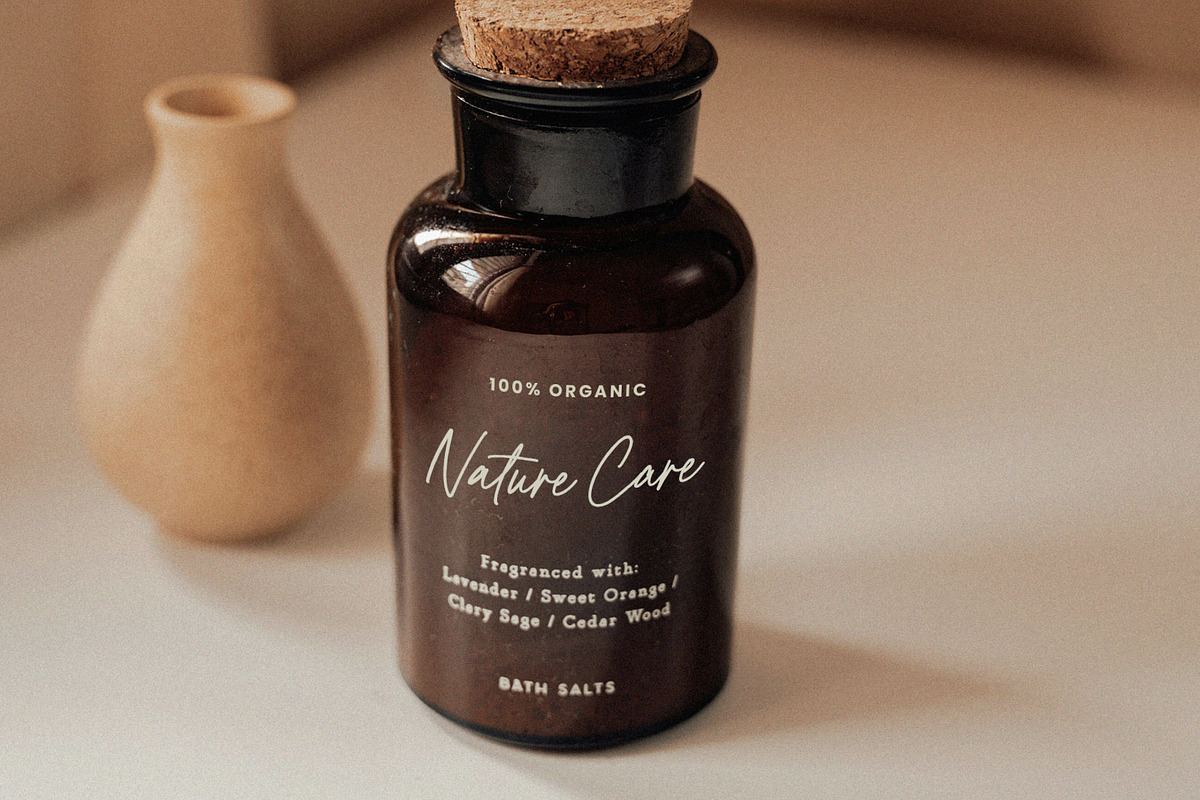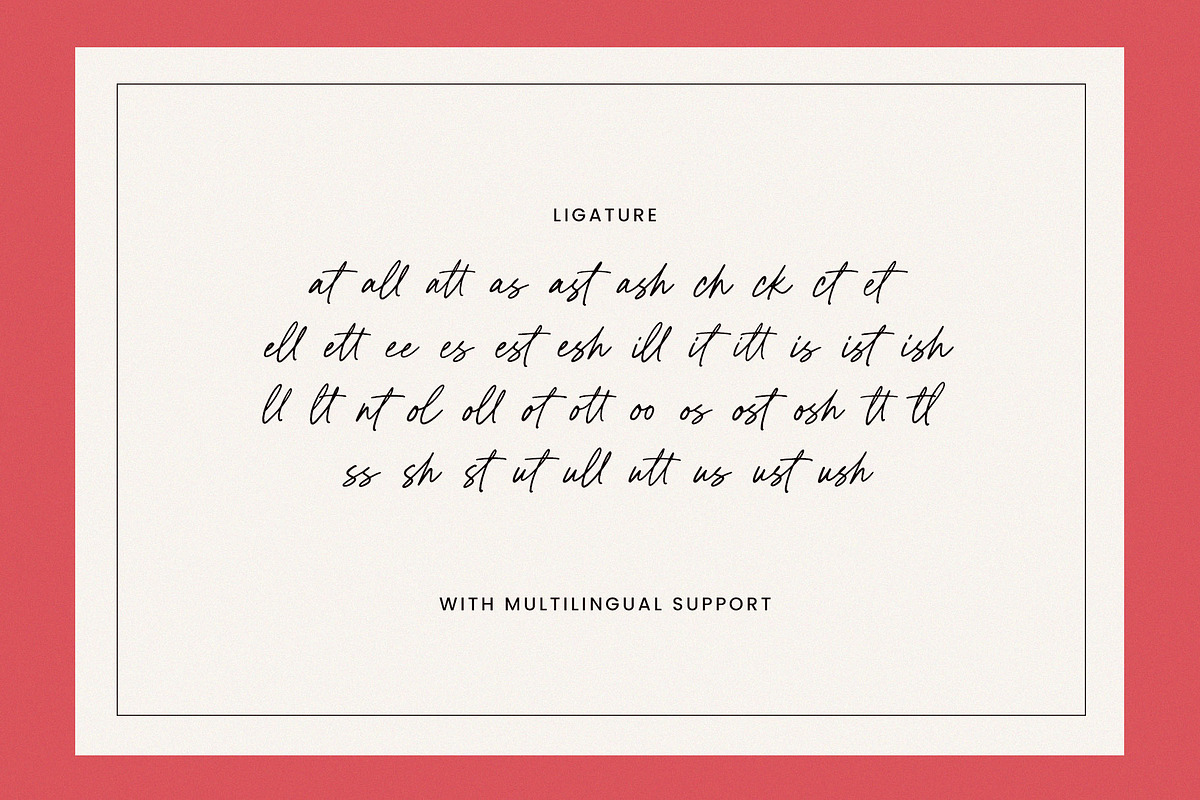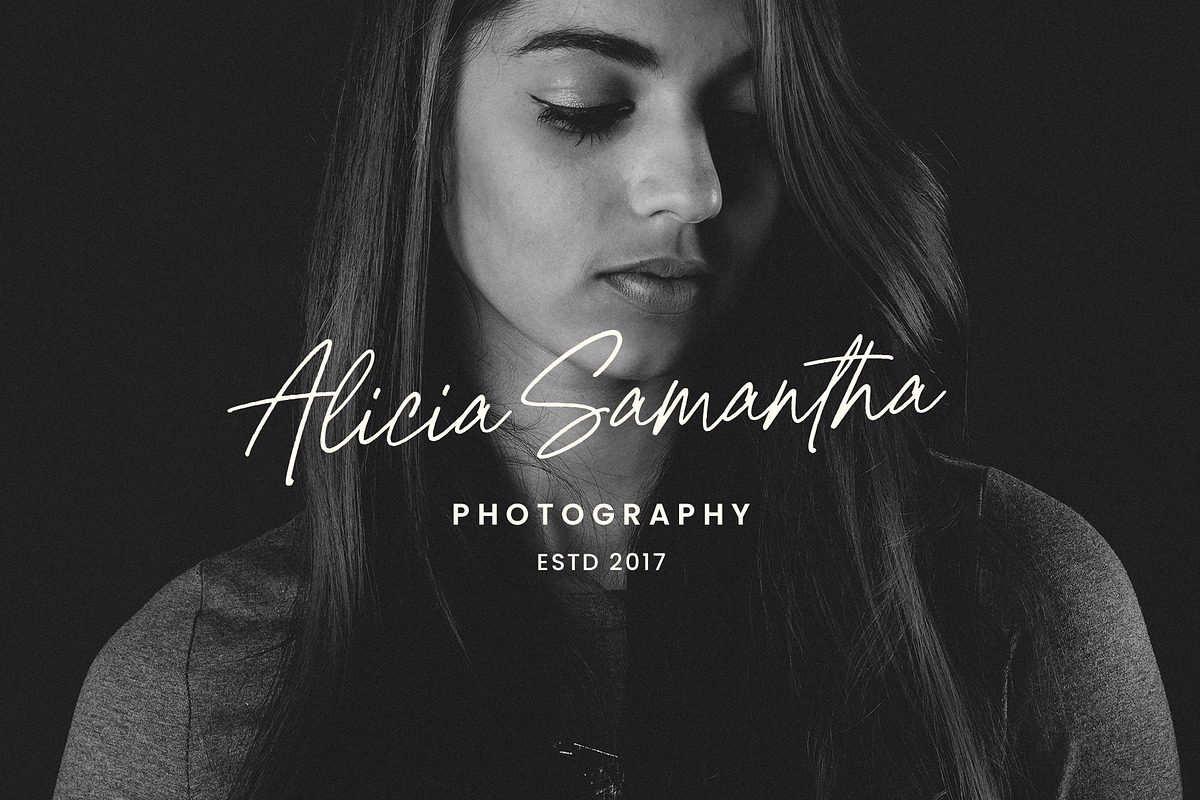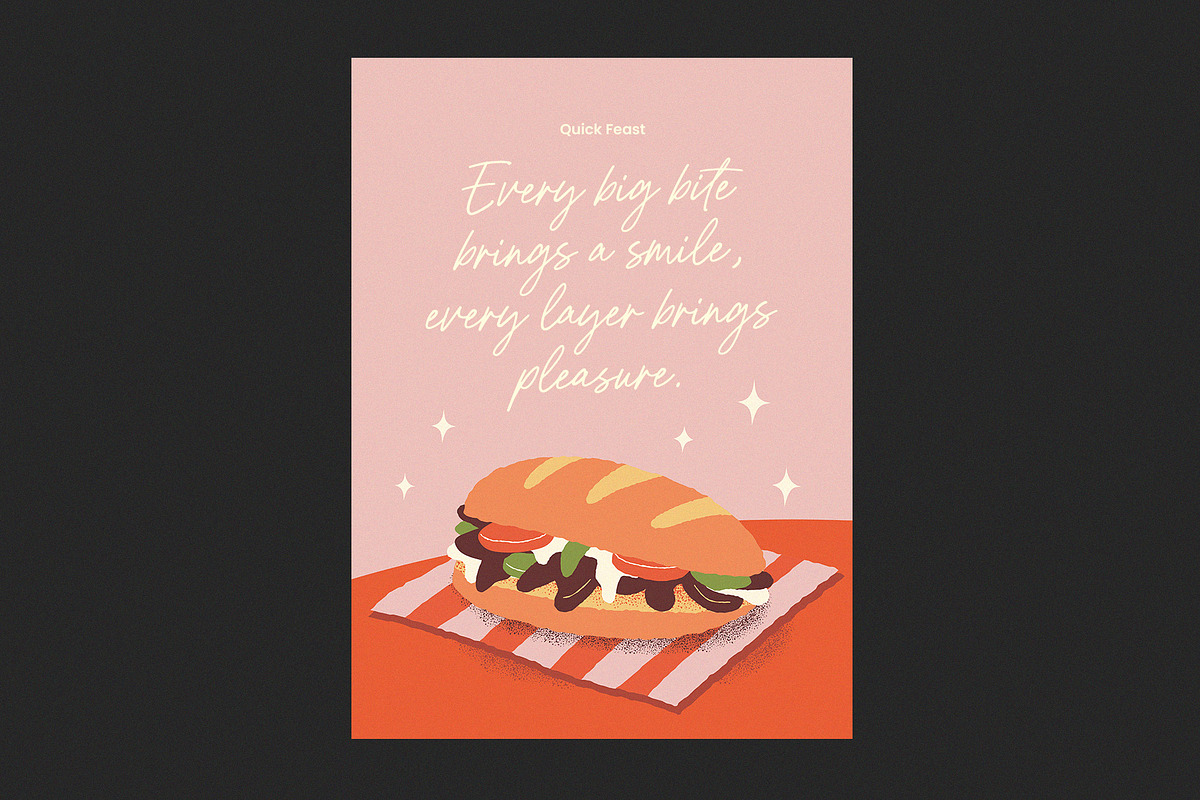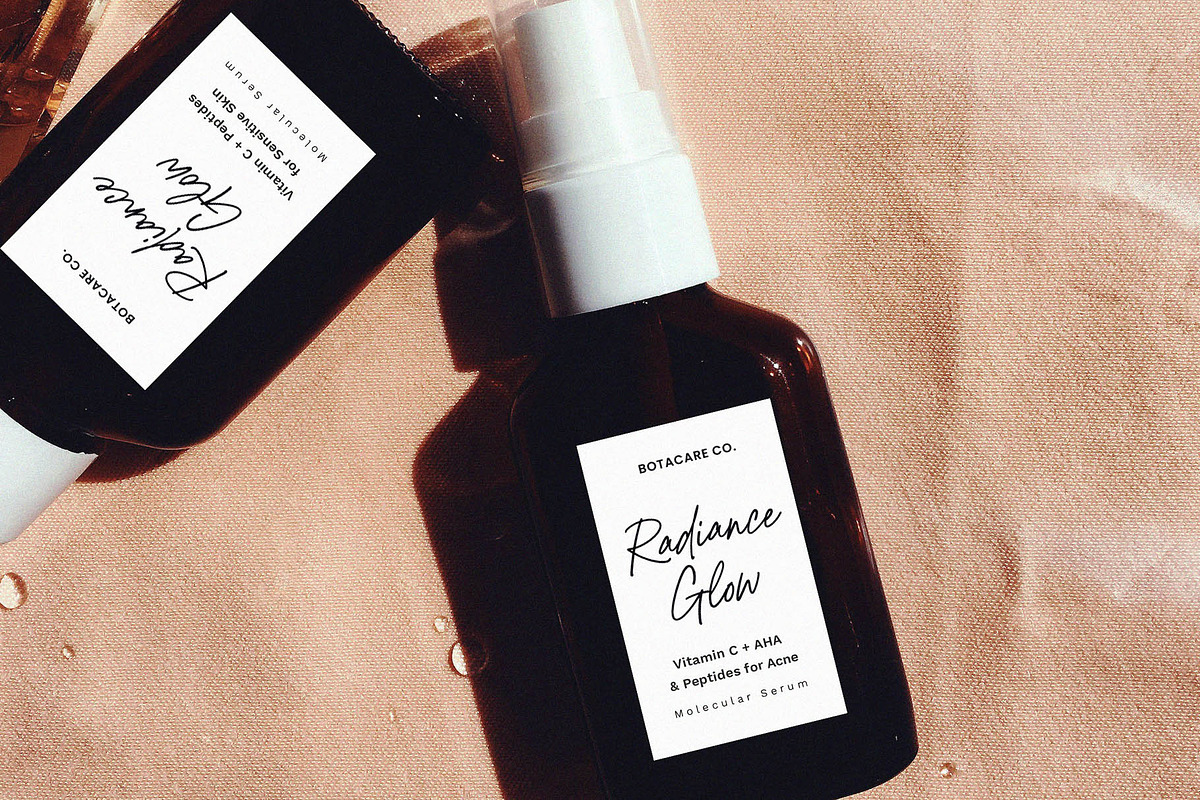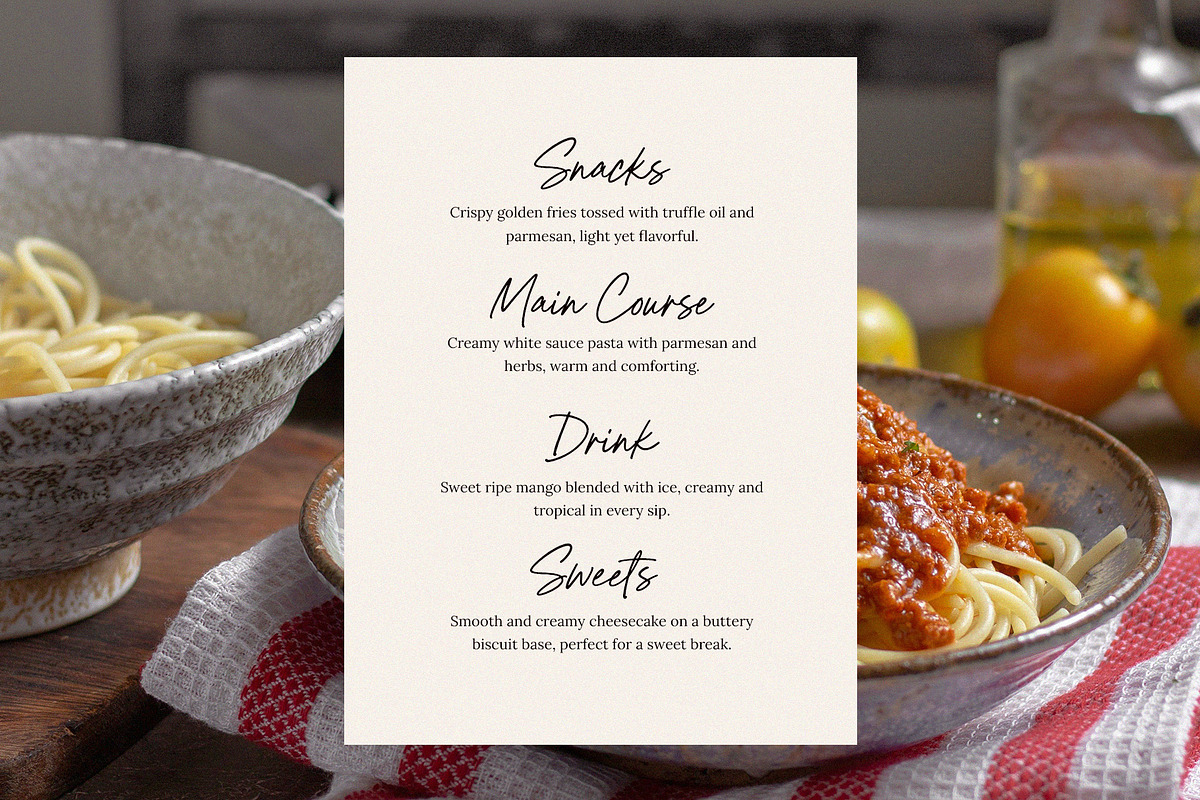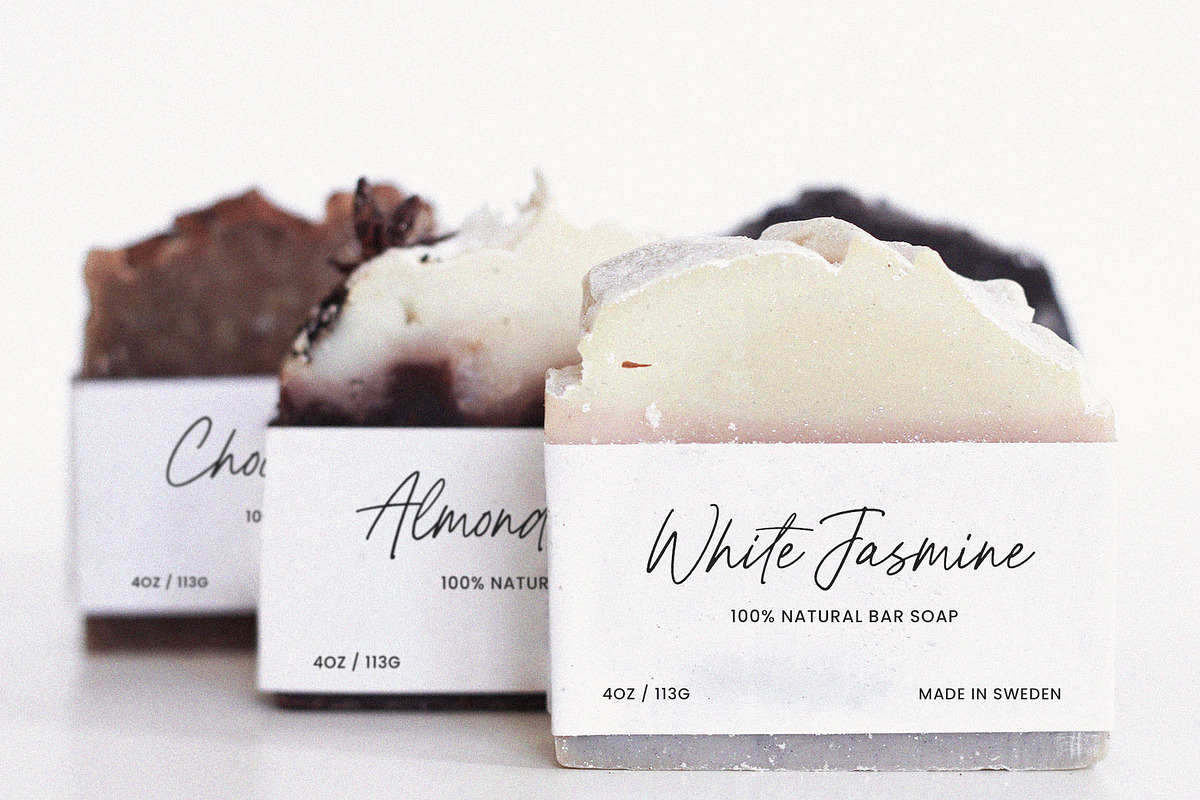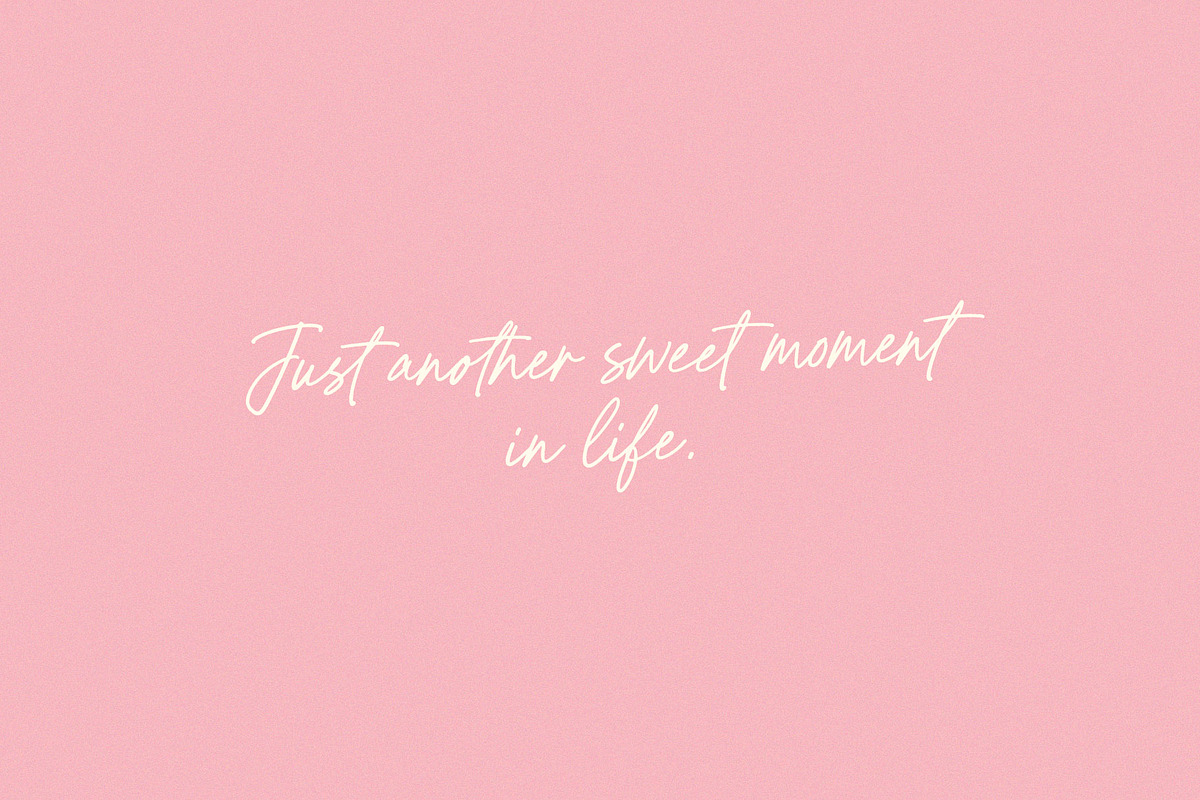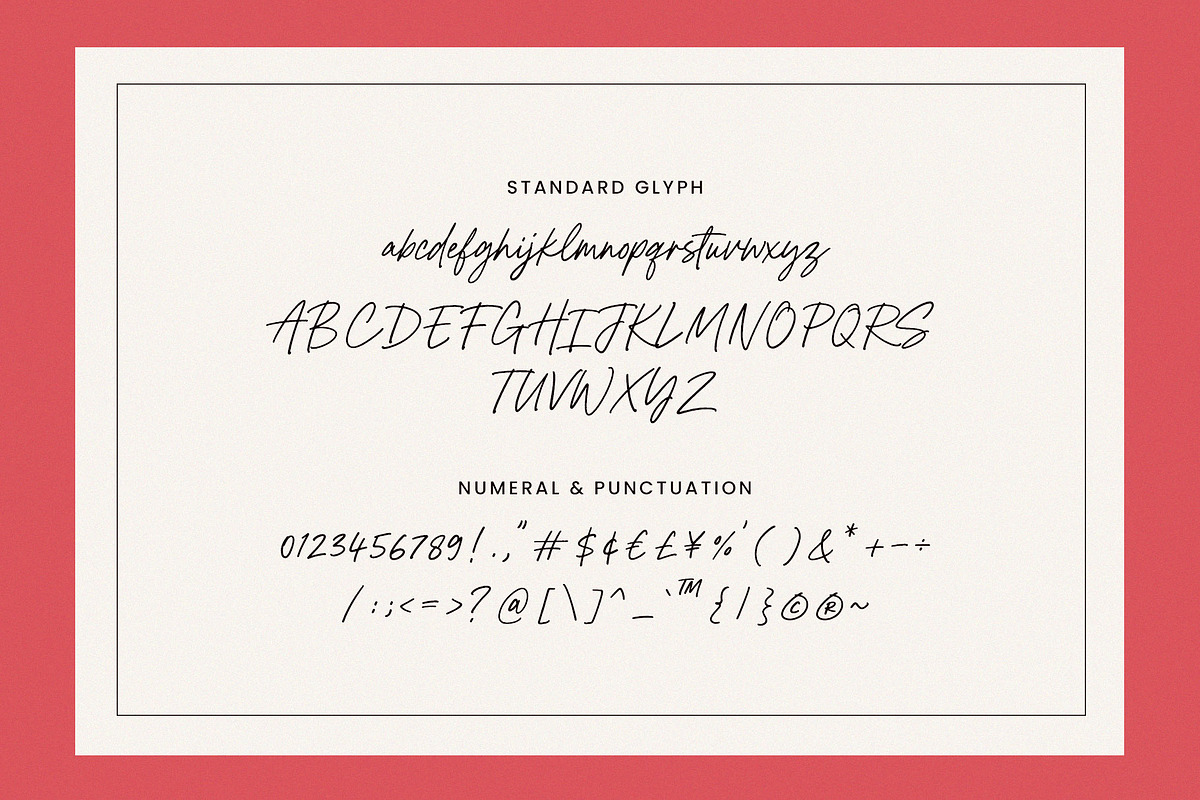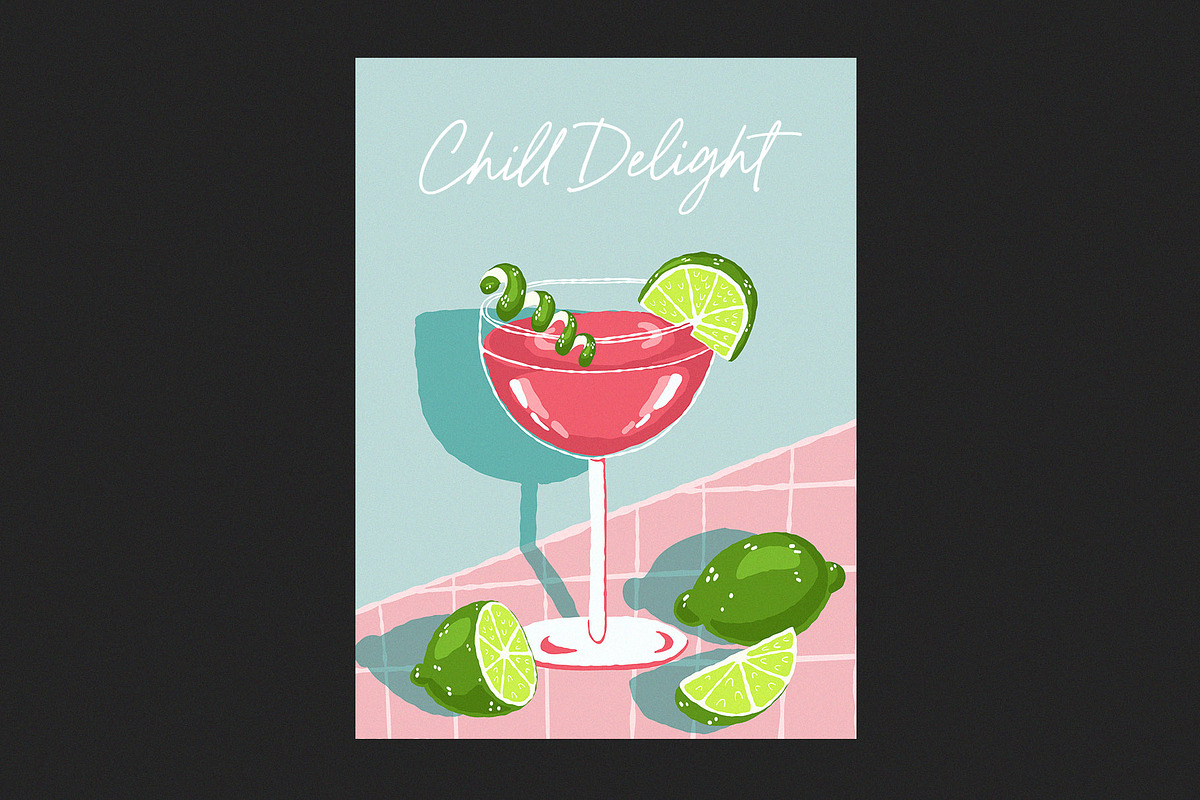
Tomato Pasta Handwritten Font
Hello everyone, I would like to introduce Tomato Pasta a modern and casual handwritten script font.
Tomato Pasta can be used for a variety of projects such as branding, labels, photography, invitations, stationery, wedding designs, social media posts, advertising, product packaging, product design, and more.
- Letters, numbers, symbols, punctuation and ligatures
- Fonts include multilingual support